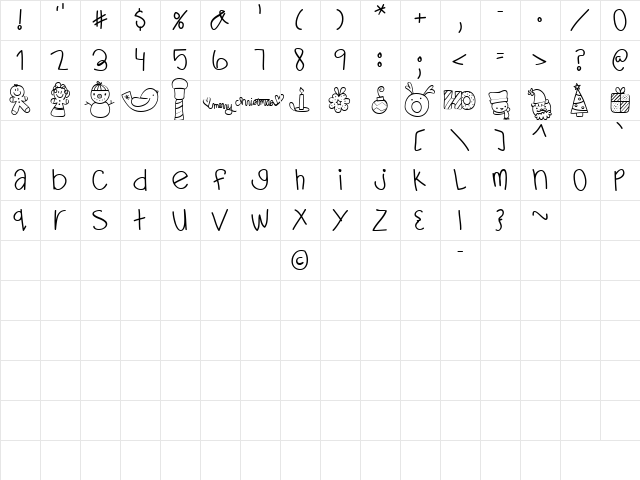
MTF Dear Santa Regular Font Preview
MTF Dear Santa Regular
MTF Dear Santa Regular Font Details
| Designer | Miss Tiina |
Design Context for MTF Dear Santa Typeface
MTF Dear Santa is a composed and adaptable typeface that performs quietly and consistently across a wide range of design contexts.